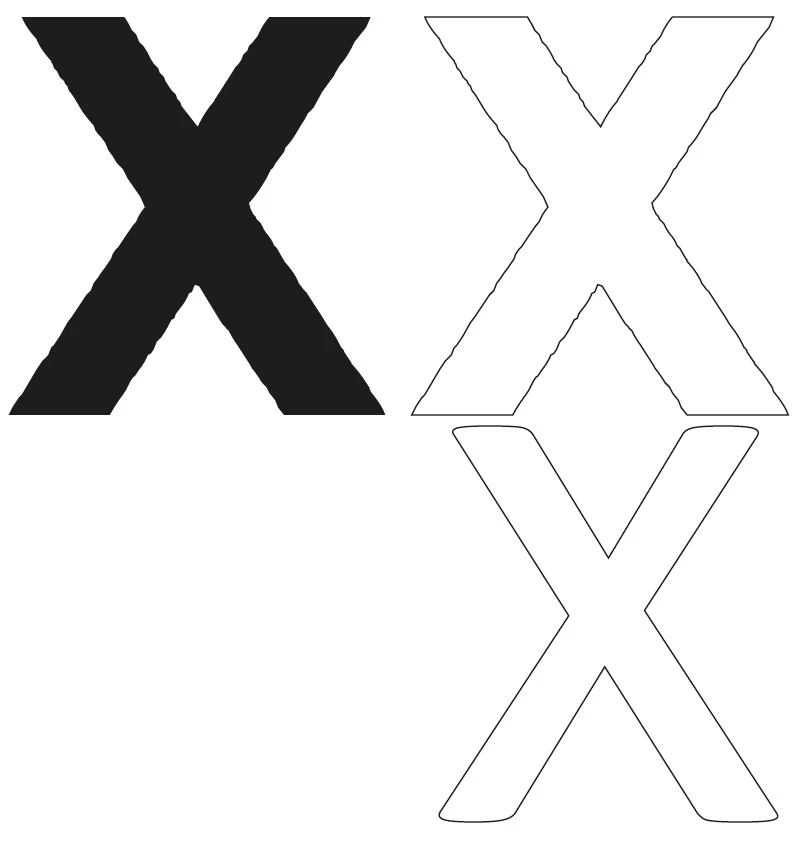
I have one font which has blurry edges at large sizes, and when zoomed-in on smaller text sizes. It's a TTF file, just like all my other fonts but it's the only one with this problem. Any advice please?
Perhaps the simplest way to work out if there are problems with the TrueType font in question is to run a small experiment.
Go to Illustrator, typeset a few letters using this font, and convert the text into vector outlines using the command from the ‘Type’ menu. Then switch to the ‘Direct Selection’ tool (white arrow), zoom into the outlined text, and click on the vector outlines of the text.
If the vector outlines have many anchor and direction control points, then the problem is with the TrueType font file itself.
When a typeface designer produces a font file, one of their responsibilities is to make sure that they’re using the fewest number of vector anchor and direction points as possible to build each character. The fewer points you use, the smaller the font file and the faster the font takes to render on-screen and on a printing press. The more points you use, the longer everything takes – and the worse the resulting text looks.
There are few reasons why the TrueType font in your example graphic looks the way it does:
First: it could be intentional. Some typefaces are deliberately designed to look rough, in an attempt to copy the irregular appearance of letters printed using metal types.
Second: it could be the result of a flawed font conversion. TrueType fonts can be converted into PostScript format with absolute mathematical fidelity. But when you convert PostScript fonts into TrueType format, there is a loss in quality. Please note that this also applies to the newer OpenType font format, which can use either PostScript or TrueType font data.
Third: your TrueType font may have been produced by using software that converts bitmap (pixel-based) letterforms into vector fonts. This is always an imperfect process, producing staggered outlines like the diagonal ones in your example graphic.
My guess: your TrueType font is most likely a bitmap-to-vector font conversion. If you have font software like FontLab or Glyphs installed on your computer, you’ll easily be able to discover your font’s origin.
My recommendation: avoid using this font if possible. If you intend using it very sparingly for large text where you deliberately want the rough appearance, then that’s fine. But if you plan on using it extensively for large amounts of body text, this font may be impractical and troublesome. It’ll probably be best to choose a visually-similar typeface, or to contact the typefoundry in question to get the most recent version of the font file.